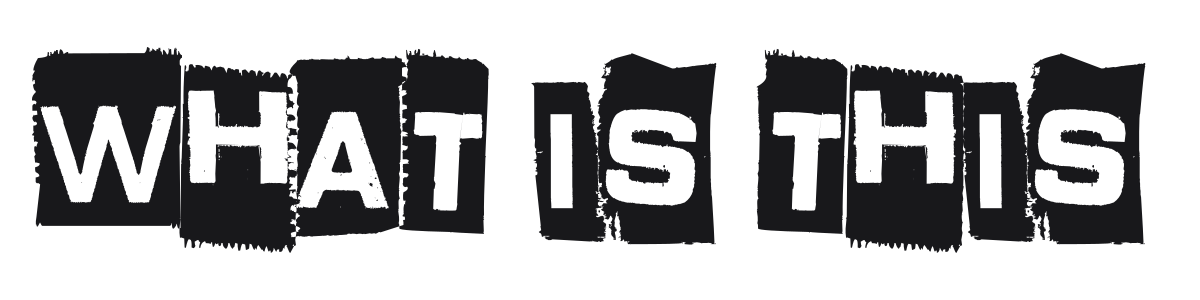
What is this
What is this is a chaotic distressed display font built from cut-and-paste letter fragments, each set on ink-worn rectangular slabs of varying size and angle. The ransom-note collage aesthetic pulls hard from punk and zine culture, with heavy texture erosion and rough edges making every word feel like it was assembled under pressure. Loud and confrontational by design.